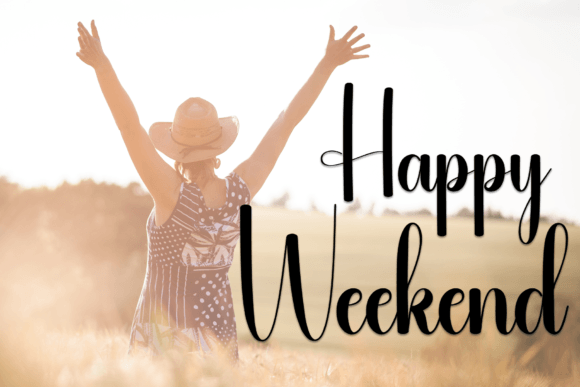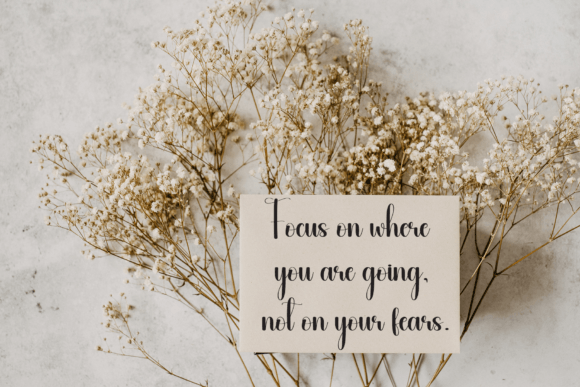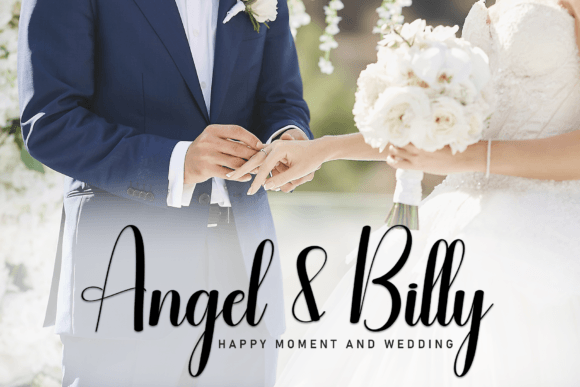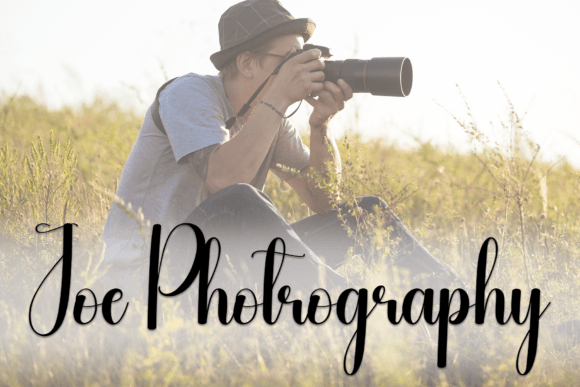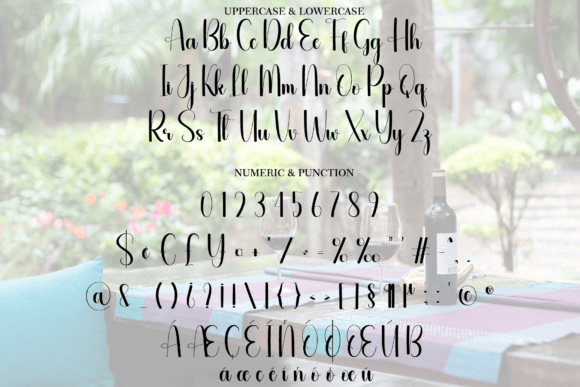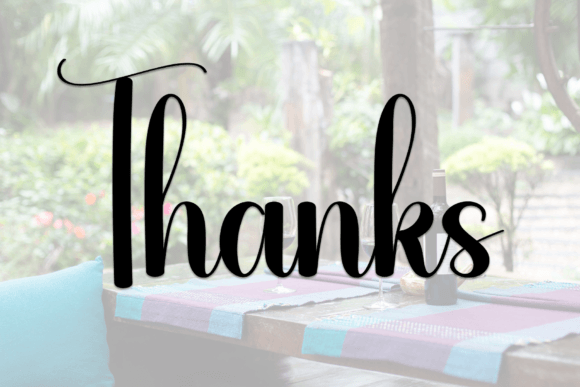
Introducing Backyard Font: The Sweet and Friendly Handwritten Font for Your Creative Projects
Are you looking for a font that can add a touch of warmth and personality to your designs? Look no further than Backyard Font, a sweet and friendly handwritten font that’s perfect for a variety of creative projects. In this article, we’ll take a closer look at the features and benefits of Backyard Font, and explore how you can use it to elevate your designs.
What is Backyard Font?
Backyard Font is a beautiful, handwritten font that’s designed to bring a sense of freshness and cuteness to your designs. With its playful and approachable feel, this font is ideal for writing wedding invitations, cards, or any other design that might need a fun touch. Whether you’re a designer, crafter, or DIY enthusiast, Backyard Font is a versatile and charming choice that’s sure to delight.
Key Features of Backyard Font
So, what makes Backyard Font so special? Here are just a few of its key features:
- Handwritten feel: Backyard Font has a warm, handwritten feel that’s perfect for adding a personal touch to your designs.
- Sweet and friendly: This font has a playful and approachable feel that’s sure to bring a smile to your face.
- Fresh and cute: With its clean lines and simple shapes, Backyard Font is a great choice for designs that need a fresh and youthful feel.
- Versatile: Whether you’re designing wedding invitations, birthday cards, or social media graphics, Backyard Font is a versatile choice that can adapt to any style or theme.
How to Use Backyard Font in Your Designs
Now that we’ve covered the basics of Backyard Font, let’s talk about how you can use it in your designs. Here are a few ideas to get you started:
- Wedding invitations: Backyard Font is a beautiful choice for wedding invitations, with its elegant and sophisticated feel.
- Birthday cards: Add a playful touch to your birthday cards with Backyard Font’s fun and whimsical feel.
- Social media graphics: Use Backyard Font to add a personal touch to your social media graphics, whether you’re designing for Instagram, Facebook, or Twitter.
- DIY projects: Backyard Font is a great choice for DIY projects, such as crafting, scrapbooking, or party planning.
Tips for Getting the Most Out of Backyard Font
To get the most out of Backyard Font, here are a few tips to keep in mind:
- Experiment with different sizes: Backyard Font looks great in a variety of sizes, from small and delicate to large and bold.
- Pair it with other fonts: Try pairing Backyard Font with other fonts to create a unique and eye-catching combination.
- Use it for headings and titles: Backyard Font is a great choice for headings and titles, with its bold and playful feel.
- Add some color: Backyard Font looks great in a variety of colors, so don’t be afraid to experiment and find the perfect hue for your design.
In conclusion, Backyard Font is a sweet and friendly handwritten font that’s perfect for a variety of creative projects. With its playful and approachable feel, this font is ideal for designers, crafters, and DIY enthusiasts who want to add a touch of warmth and personality to their designs. Whether you’re designing wedding invitations, birthday cards, or social media graphics, Backyard Font is a versatile and charming choice that’s sure to delight.